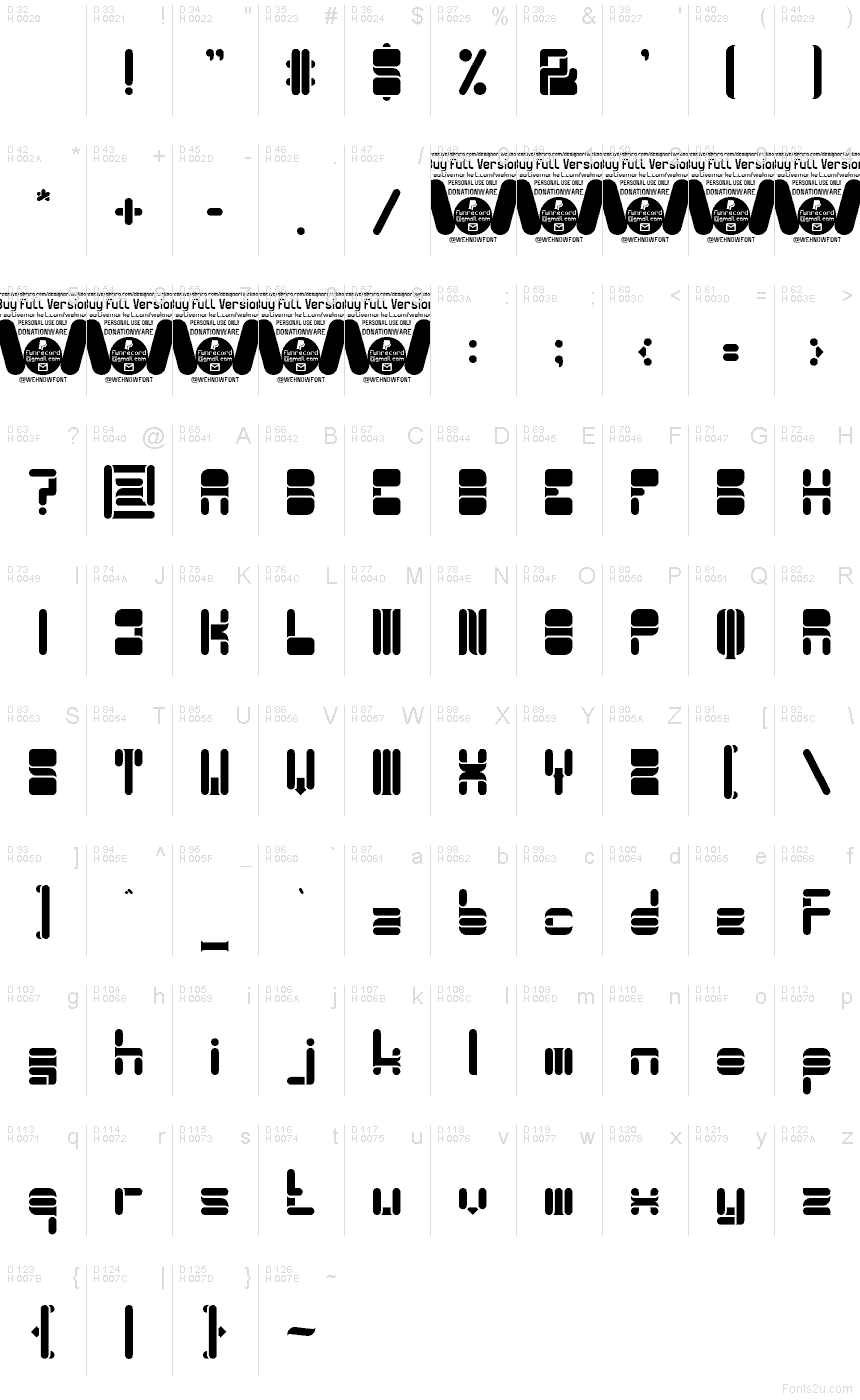
FOOTBALL
Football font by weknow is a free bold groovy display font. Built around chunky, rounded rectangles split by a crisp horizontal band, it delivers that punchy, modular rhythm you rarely find—like jersey stripes rendered in glossy plastic. The shapes feel cushioned yet assertive, with tight spacing and uniform heft that keeps headlines solid and unmistakable.
Using Football, your titles land with swagger on sports posters, fan apparel, gaming covers, festival flyers, social graphics, and bold signage. This free font shines at large sizes; open the tracking slightly for extra clarity. Pair it with a clean light sans for copy to let those banded letterforms take center stage.